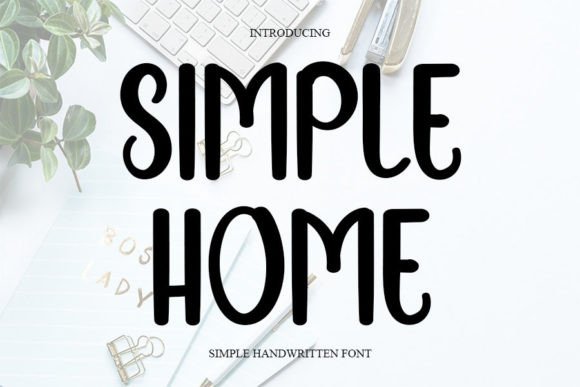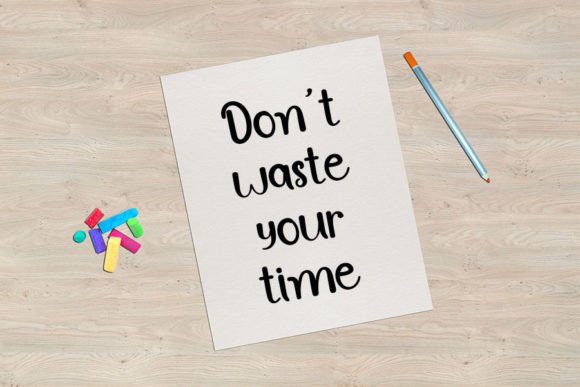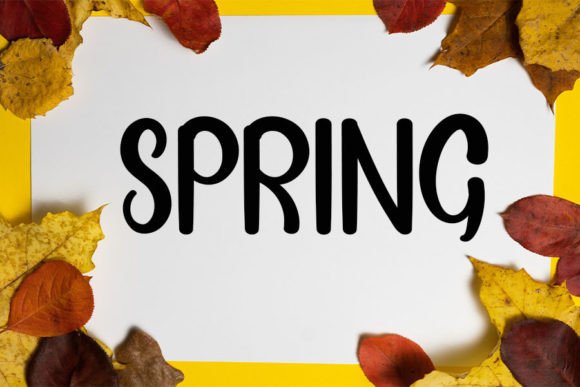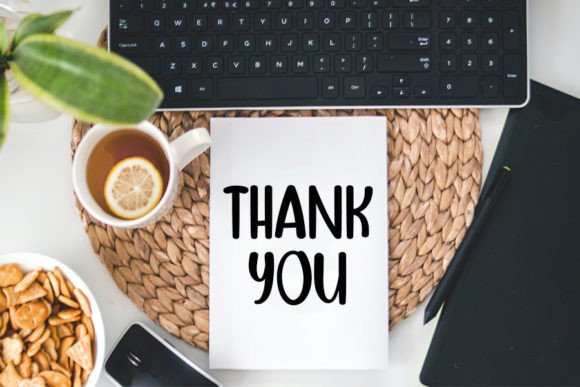
About Simple Home Font
Simple Home Font is a magical handwritten typeface crafted to bring elegance and a touch of quirkiness to your creative work. Its clean lines and unique style make it a versatile choice for a variety of design projects, from logos and branding to social media posts and crafty DIY projects.
Elegant Yet Quirky Design
This font strikes a perfect balance between sophistication and playfulness. The elegant strokes combined with a quirky twist give Simple Home a distinctive character that adds personality to any design. Whether you want to create a refined logo or a fun social media graphic, this font fits the bill.
Versatile for Multiple Uses
The font also excels in DIY crafts and social media visuals, providing a fresh and engaging appearance.
Ideal for Logos and Branding
If youβre aiming for a unique identity, Simple Home offers an excellent option. Its magical and clean style helps logos stand out with a handcrafted feel. This makes it perfect for businesses and creatives who want to convey authenticity and creativity.
Perfect for Social Media and DIY
Social media content demands eye-catching visuals, and Simple Home Font delivers just that. It also works wonderfully for DIY projects, where its quirky charm can enhance invitations, cards, or personalized crafts.
Why Choose Simple Home Font?
Simple Home is a go-to font for designers seeking a blend of elegance and uniqueness. Its handcrafted vibe combined with clean execution allows you to create captivating designs that resonate with your audience.